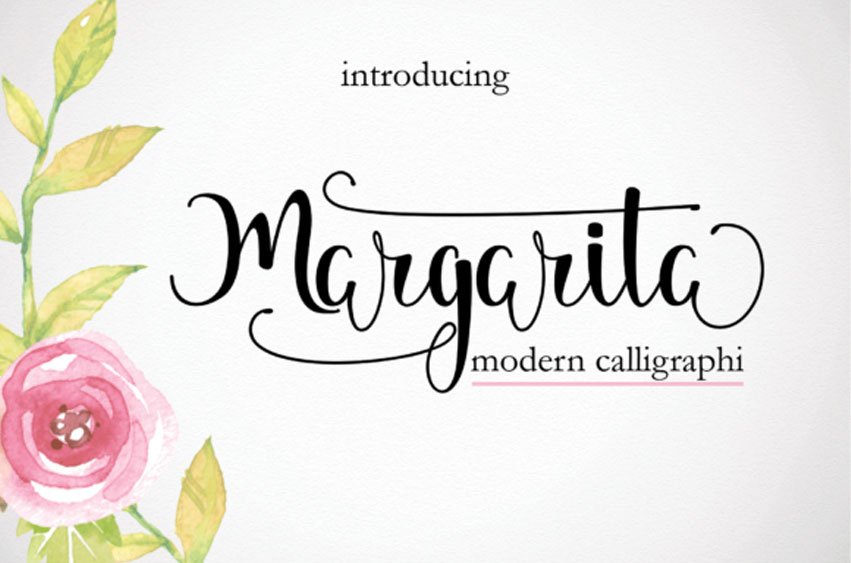
Margarita Calligraphy Font
Margarita Calligraphy Font is a handwritten script with an elegant touch.
It can be used for invitations, signatures, blogs, social media, and much more!